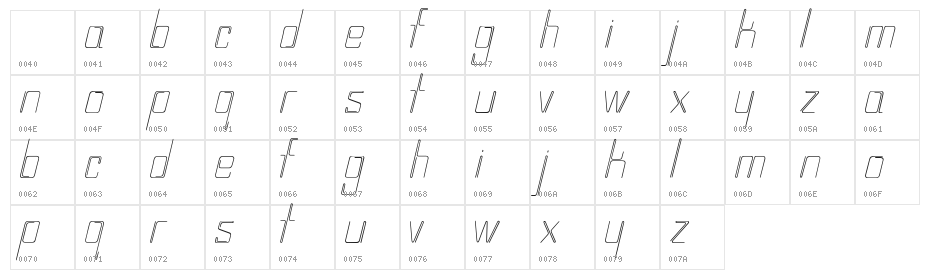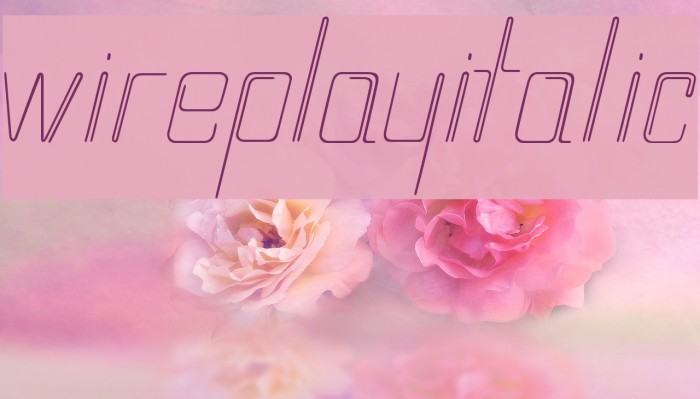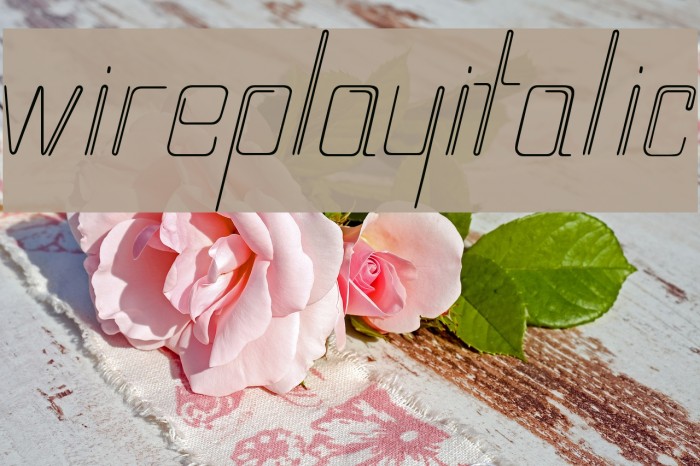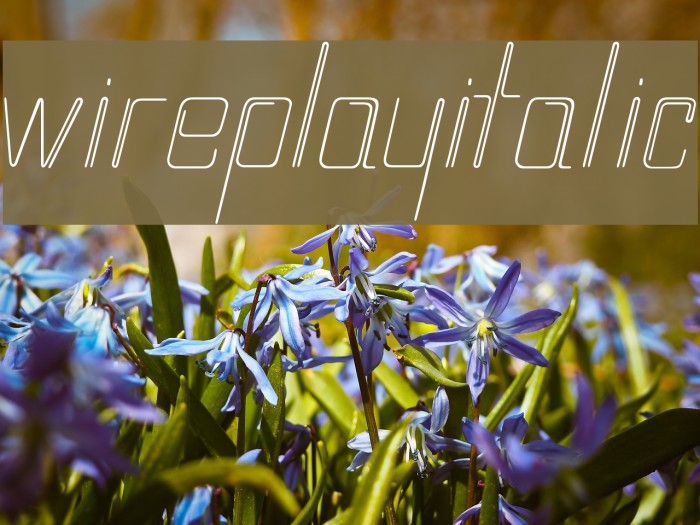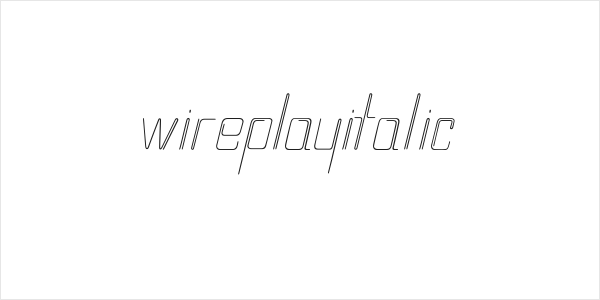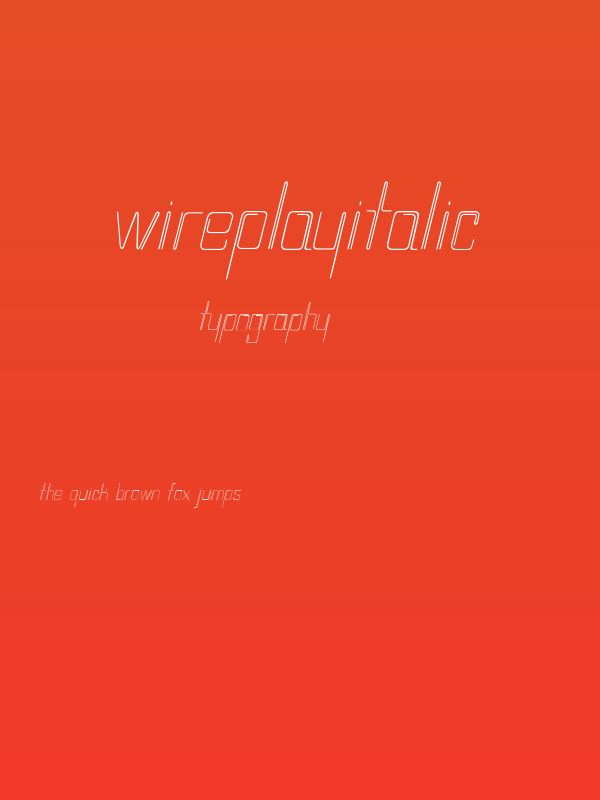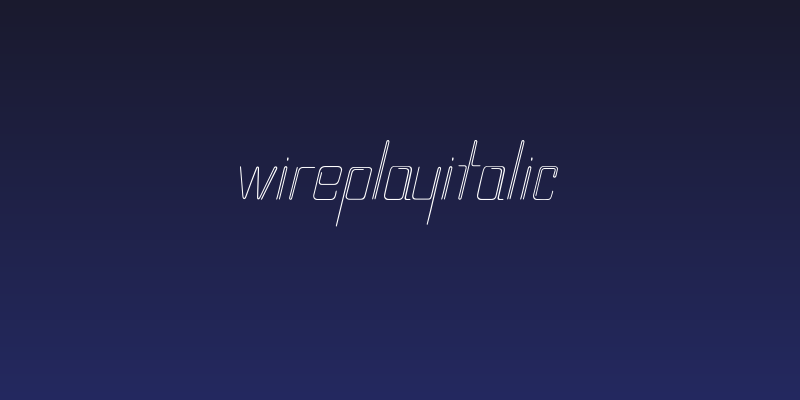
wireplayItalic Font
wireplayItalic Description
This font features a sleek, modern design with a continuous, flowing line that creates a sense of motion and fluidity. The characters are elongated and slightly slanted, giving an italicized appearance that enhances its dynamic look. The strokes are uniform in thickness, contributing to a clean and minimalist aesthetic. The open, airy design of the characters allows for excellent readability, even at smaller sizes. The font's geometric structure is both contemporary and stylish, making it suitable for a variety of design applications.
Use CaseHeadlines, Logos, Digital interfaces
Proposed ProjectsIdeal for modern branding, tech-related designs, futuristic themes, and digital interfaces.